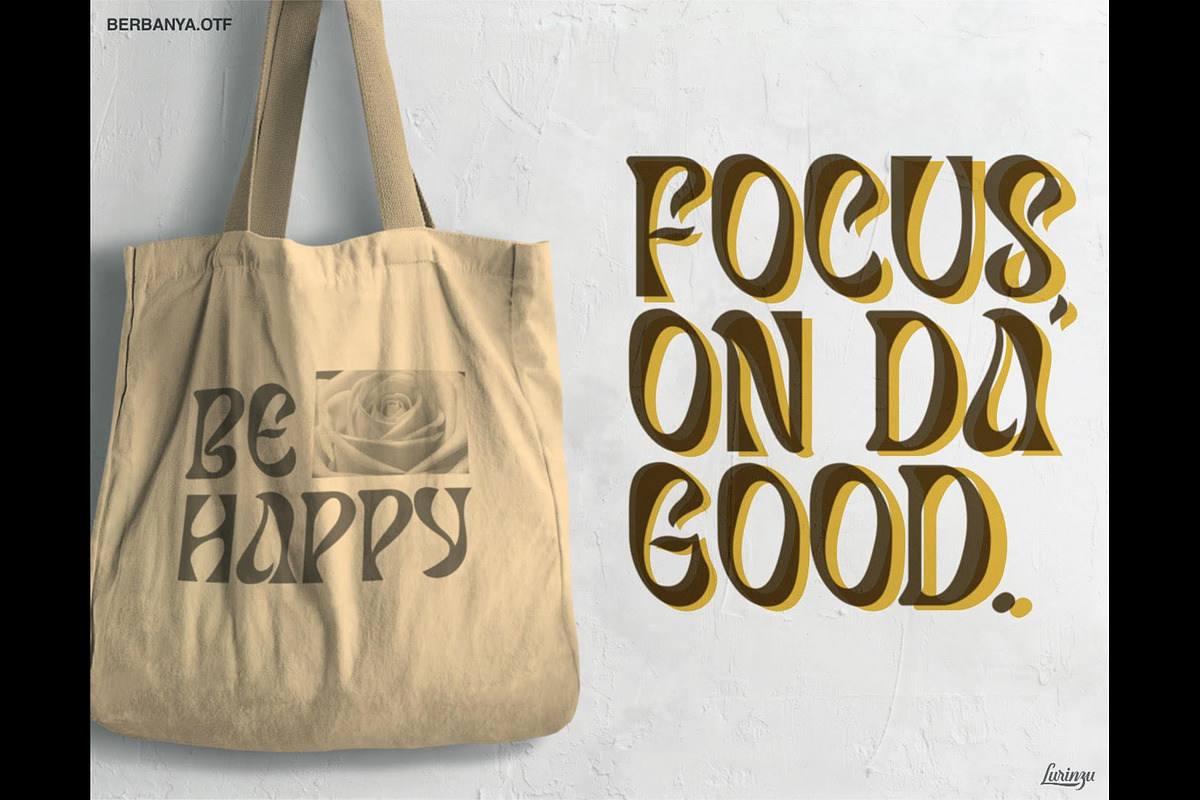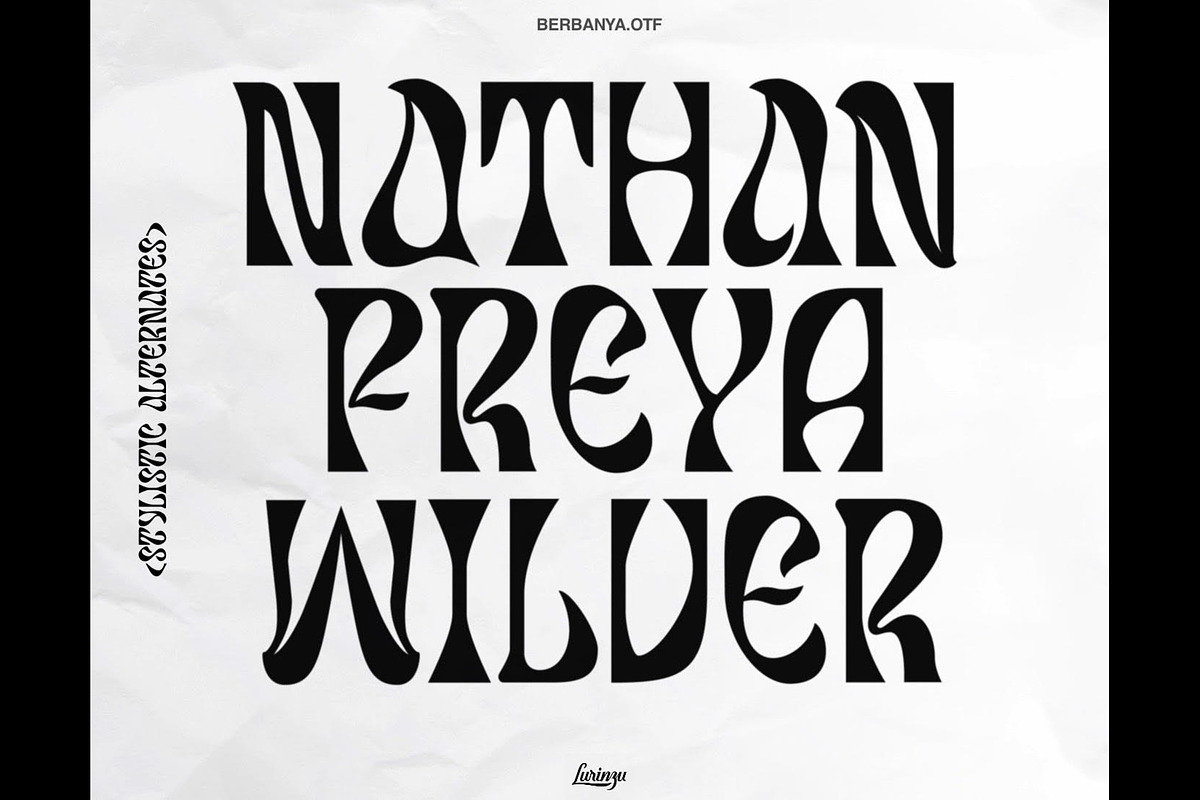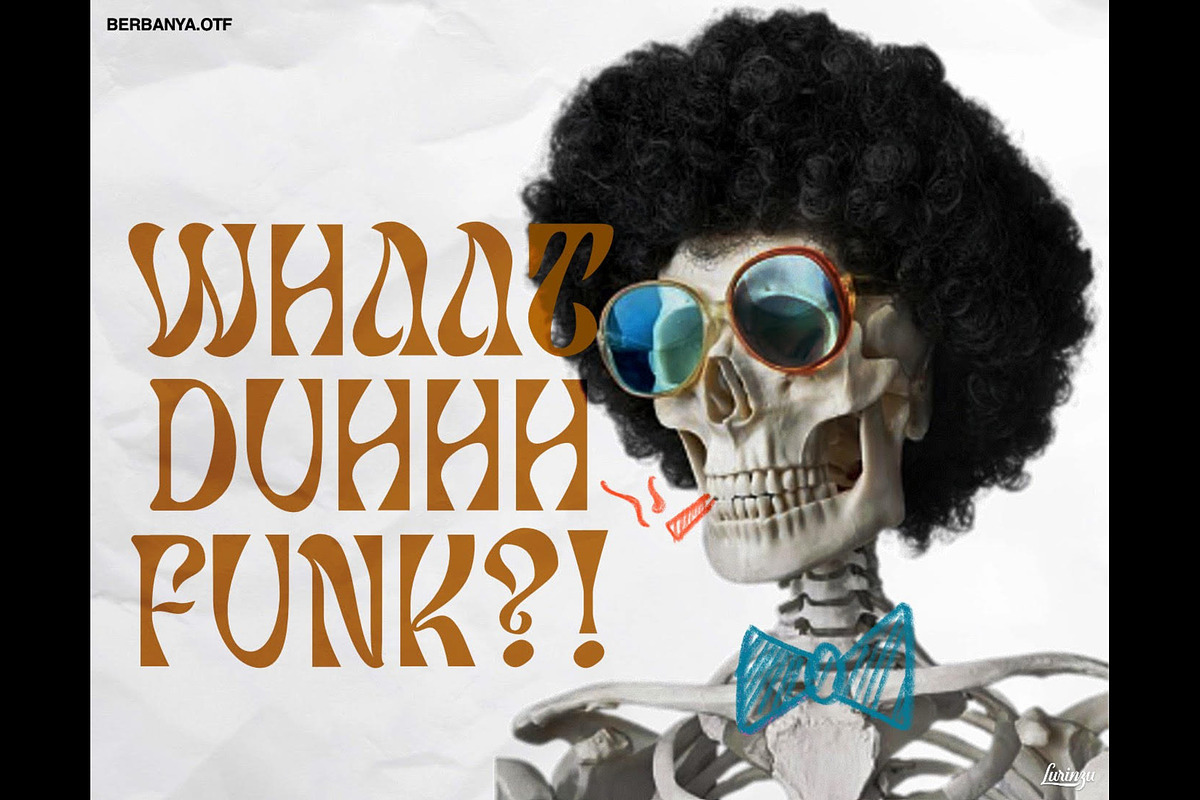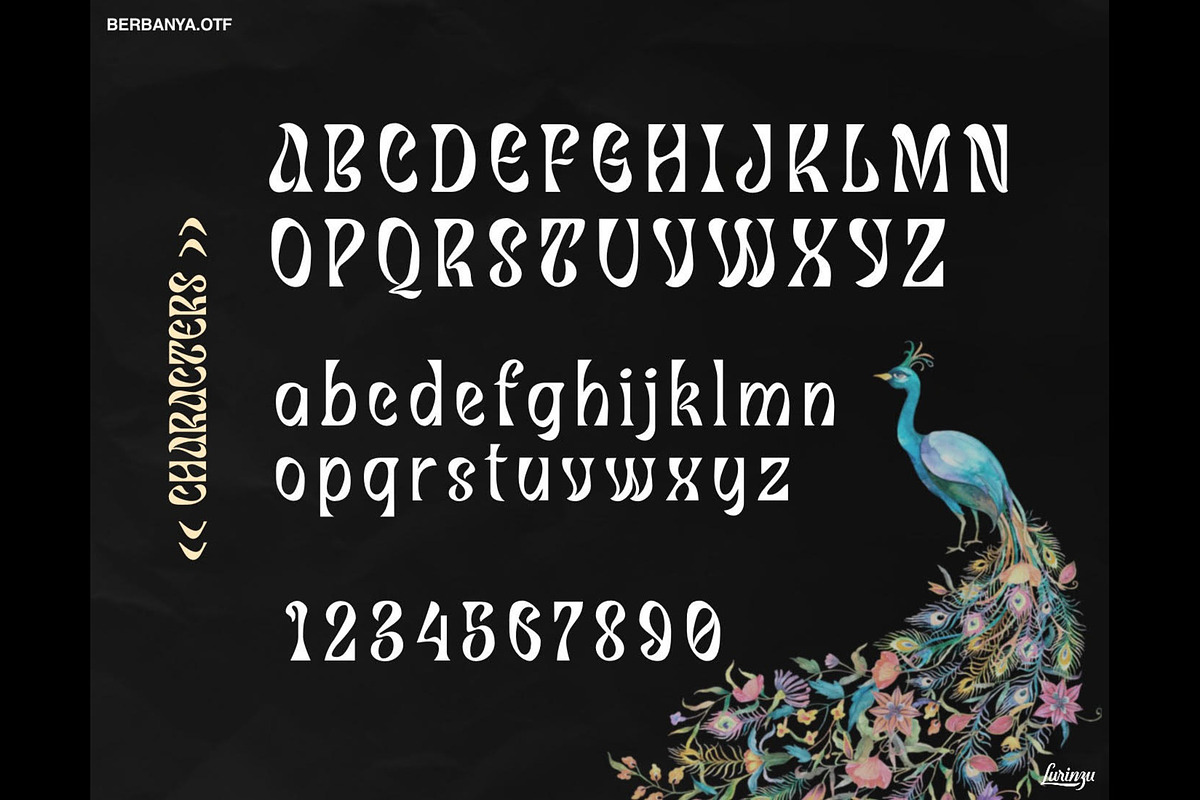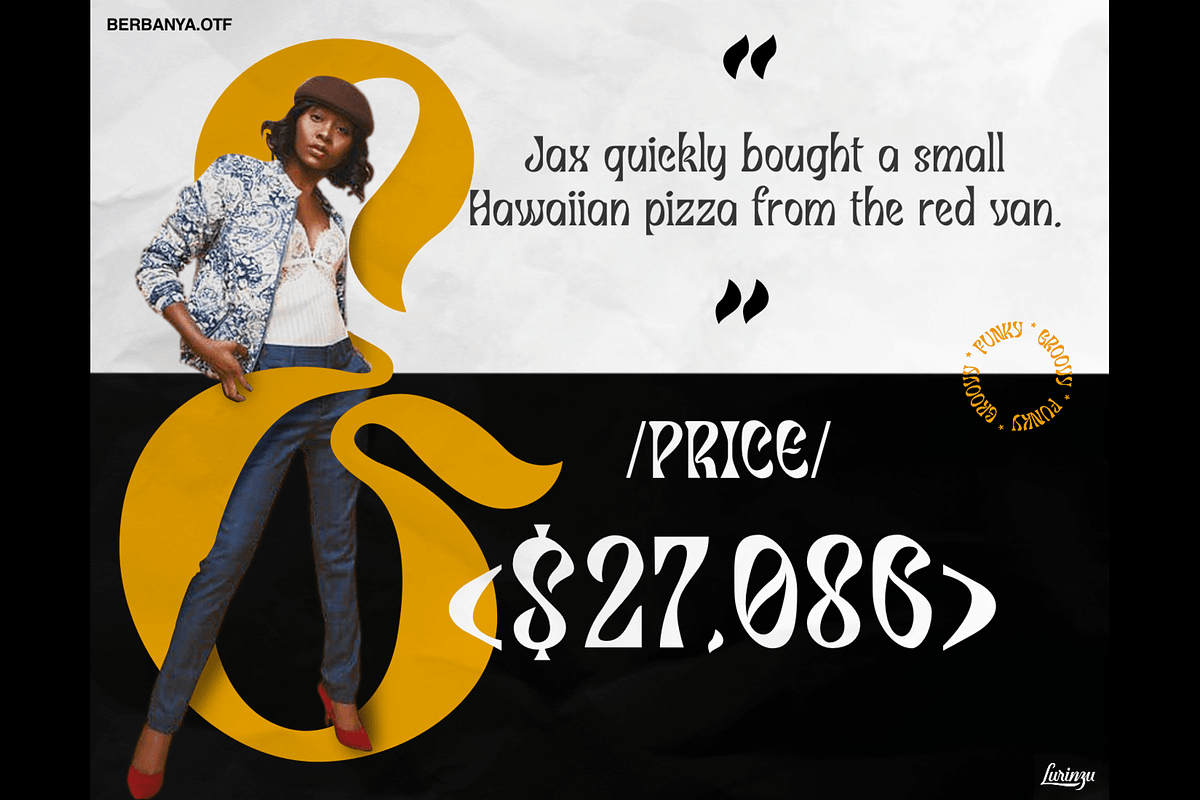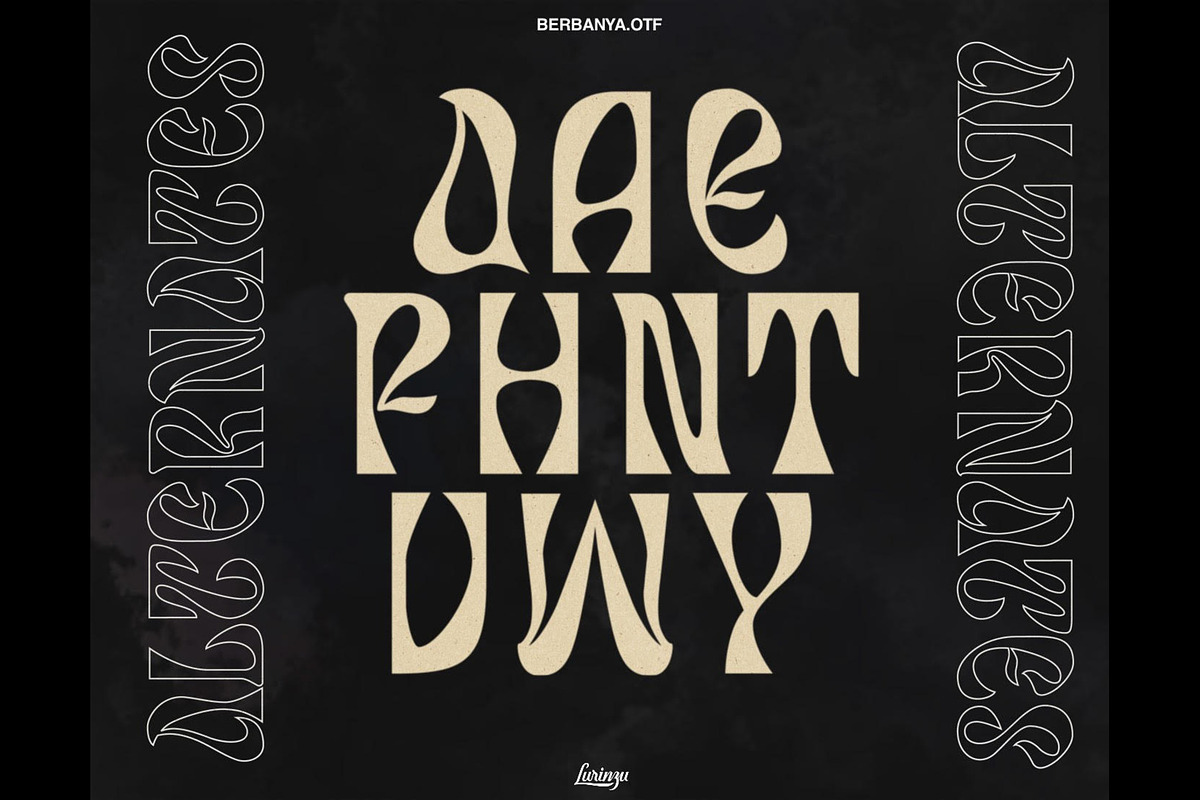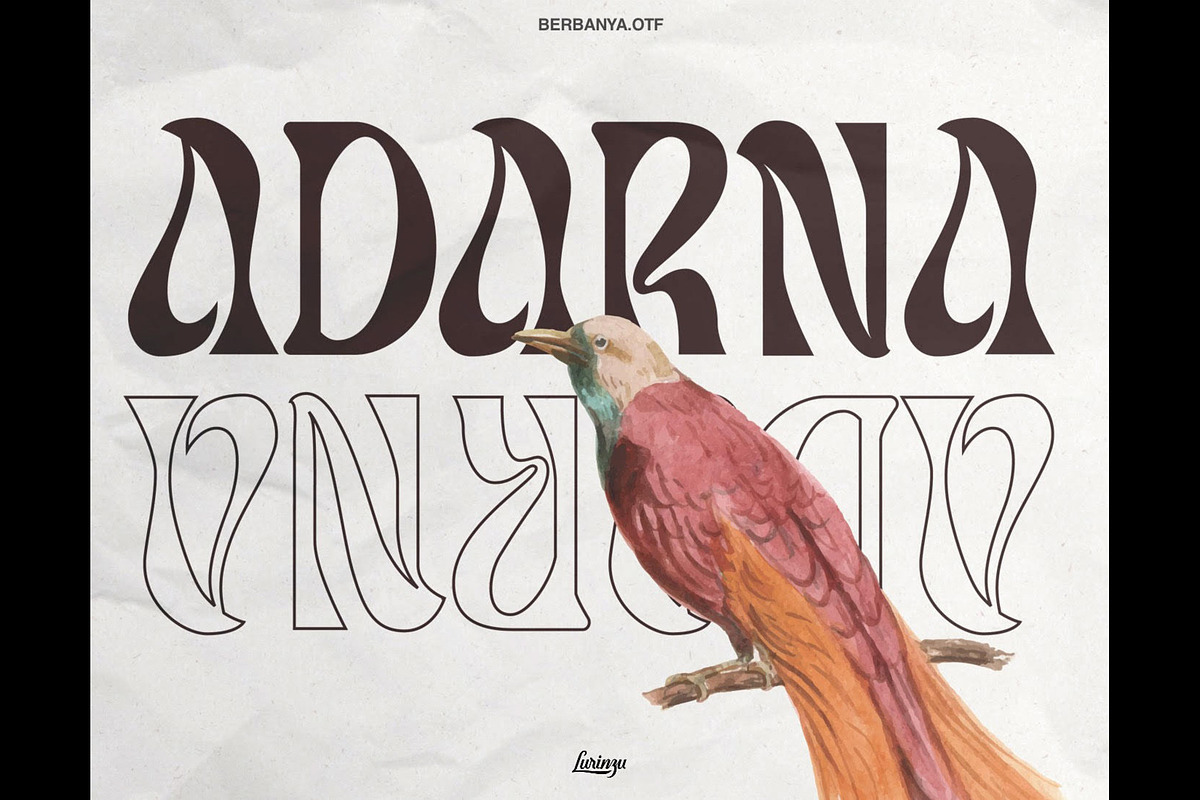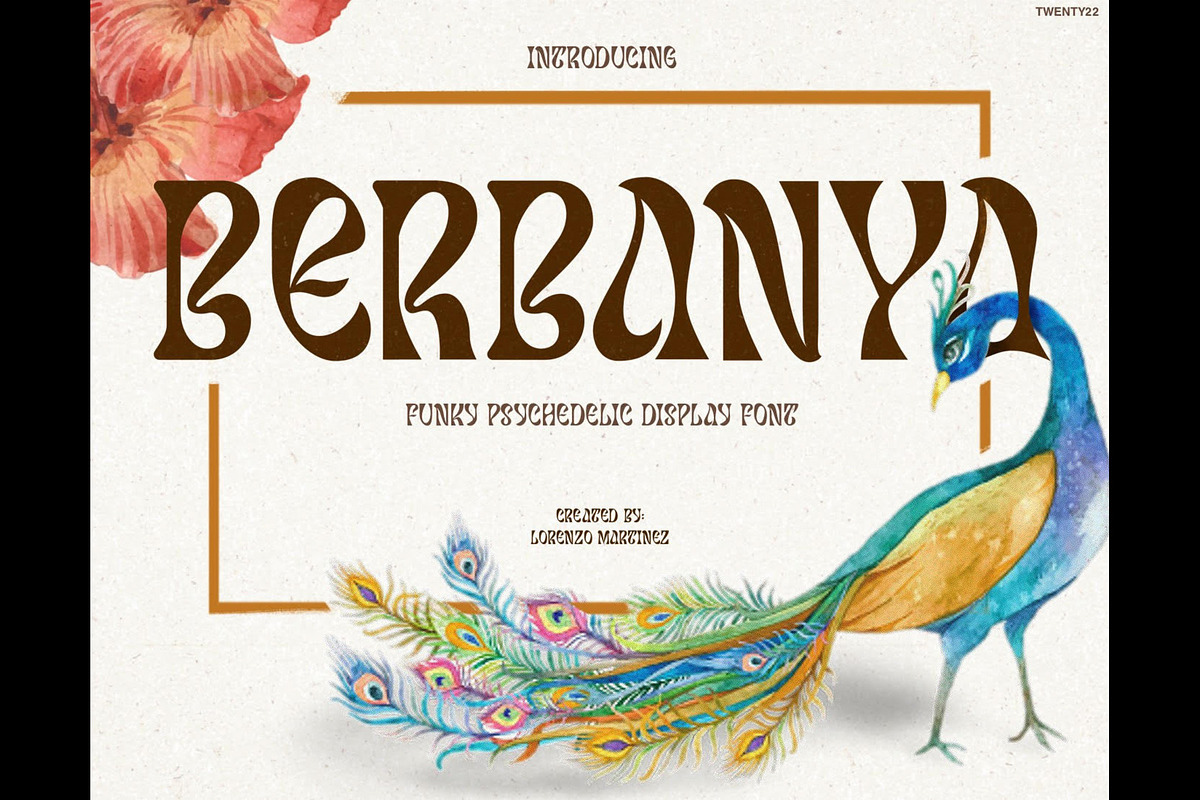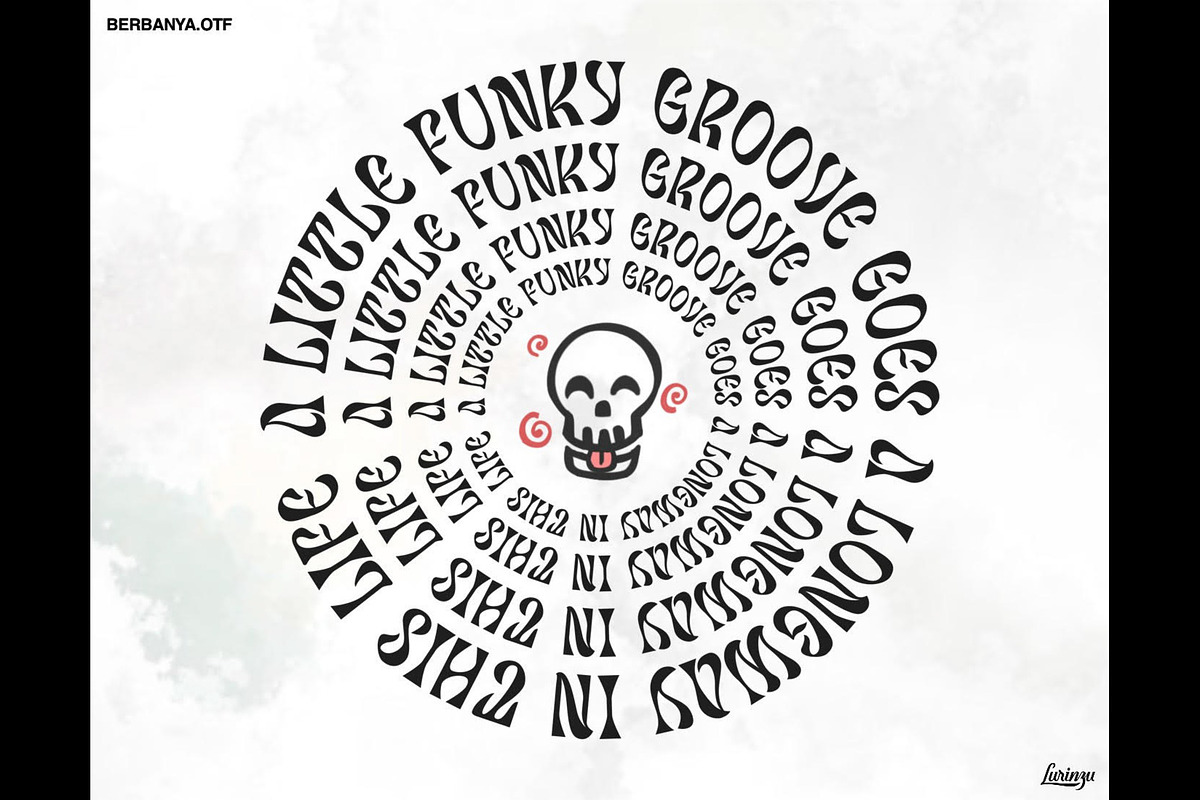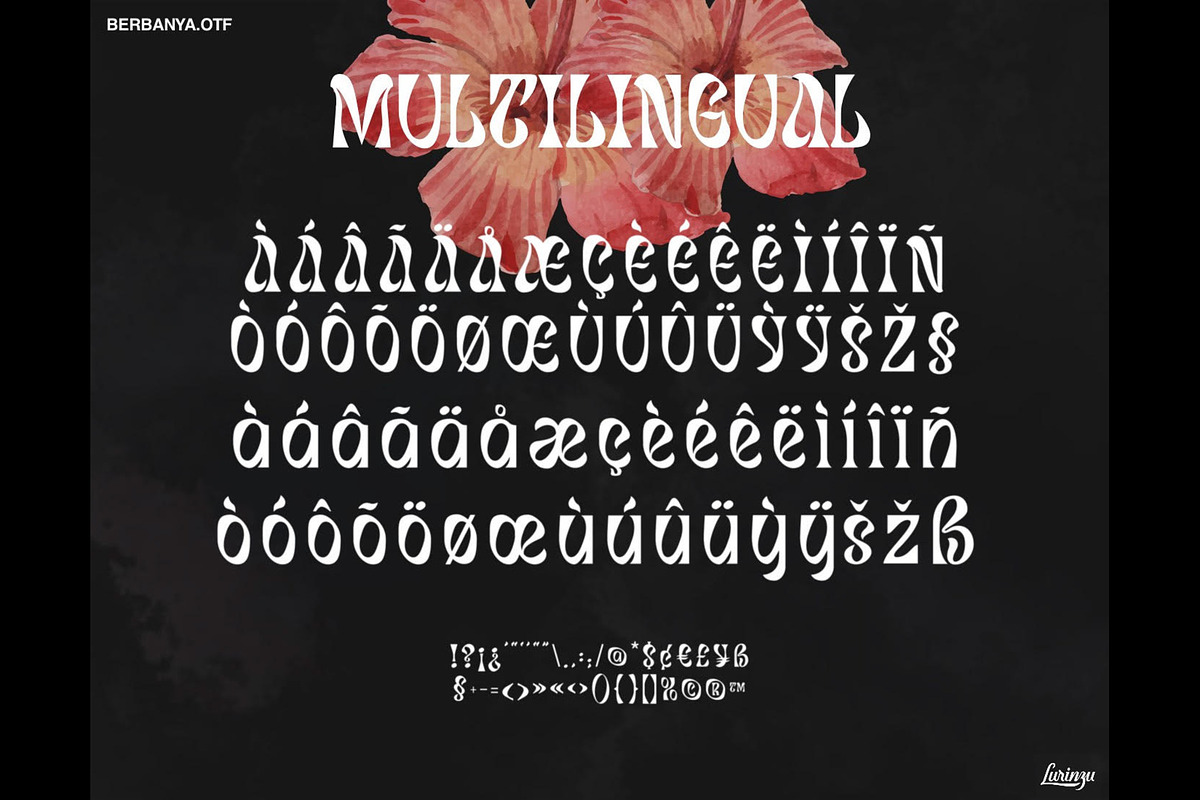
Berbanya - Funky Psychedelic Font
Berbanya is a funky psychedelic display font that pushes the boundaries of legibility with bold, unusual letterforms and a strong funk-soul attitude. This typeface captures the vibrant, expressive spirit of 1970s retro design, making it ideal for projects that require a burst of creativity and attitude.
Designed with unique stylistic alternates and multilingual support, Berbanya brings a groovy, rebellious edge to your typography toolbox.
- Full uppercase + lowercase set
- Alternates and stylistic glyphs (Opentype features)
- Multilingual language support
Make your design stand out with Berbanya—where retro funk meets modern freedom